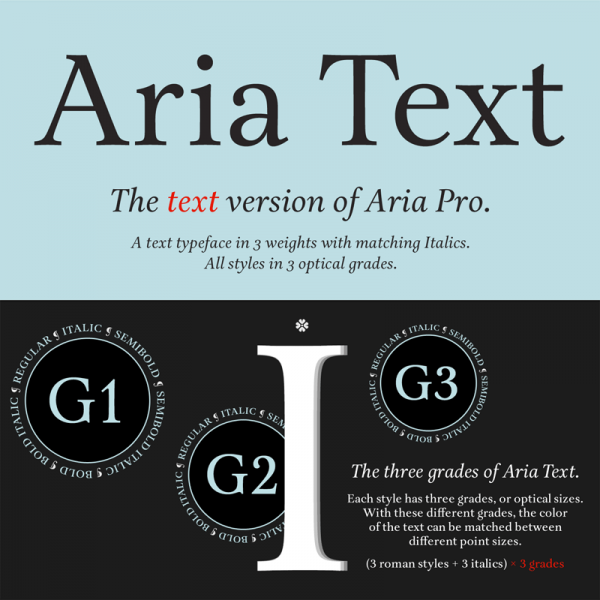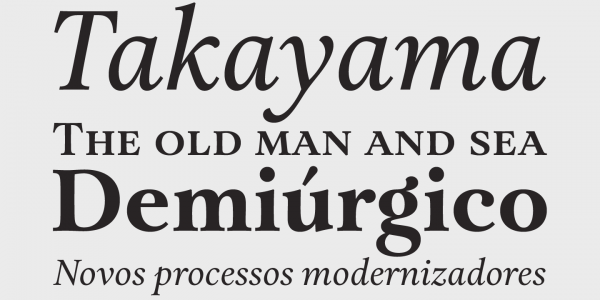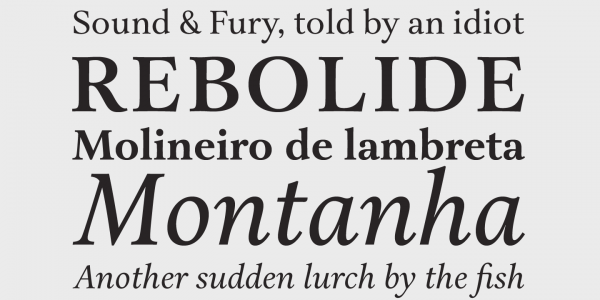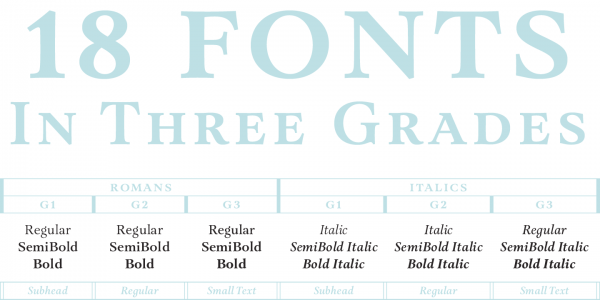
Aria Text, a sober and rational text font by Rui Abreu.
Rui Abreu designed the Aria Text font family in 2013-2014. It’s a sober and rational typeface intended for the use in books. Aria Text performs well in different point sizes, whether very small or large text sizes. Its geometry is based on a high contrast and clear shapes, which results in an excellent readability. The Aria Text font family consists of 18 fonts in 3 grades.
Several OpenType features such as small caps for all weights, ligatures or different figure styles including old-style and tabular sets ensure a wide range of applications. The family supports all latin languages.